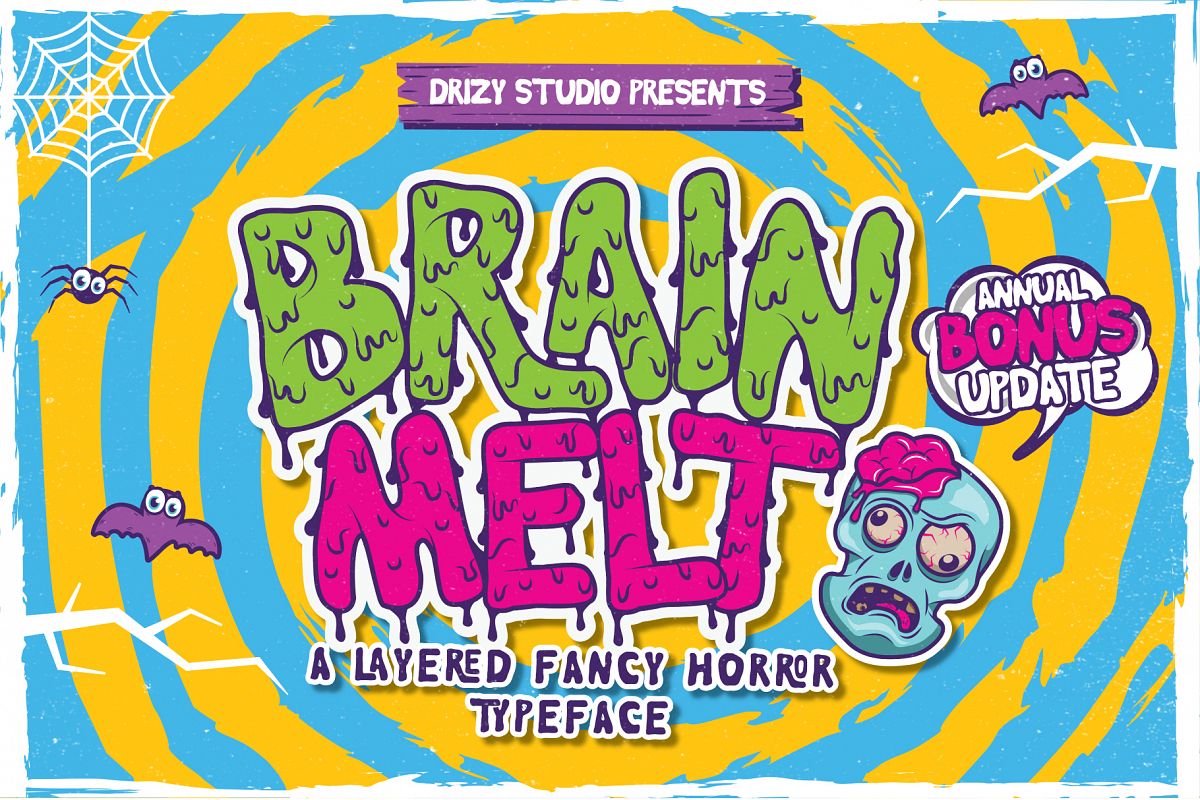
Brain Melt Layered Typeface UPDATE!
Brain Melt
Brain Melt Outline
Brain Melt is a layered fancy horror typeface, adapted from the slime droplets. Characteristic of this fonts will act to create an ambience of horror with different styles. The style is cute and funny, inspiration from pop art cartoon. Ideal for designs with a fun concept, but can be used for serious, scary, mystical, chilling, dark or light. Brain Melt is as comfortable on a Halloween as in a children’s book cover, flyer, poster, greeting cards, packaging, printed quotes, cover album, logos, etc.Extra!! Brain Melt comes with “Vector Pack & Halloween Flyer”, to make you easier for adding the “fun object”. In this pack you will get fully editable vector AI, EPS and PS. Make your design will more playful and stand out!!Included in The Download